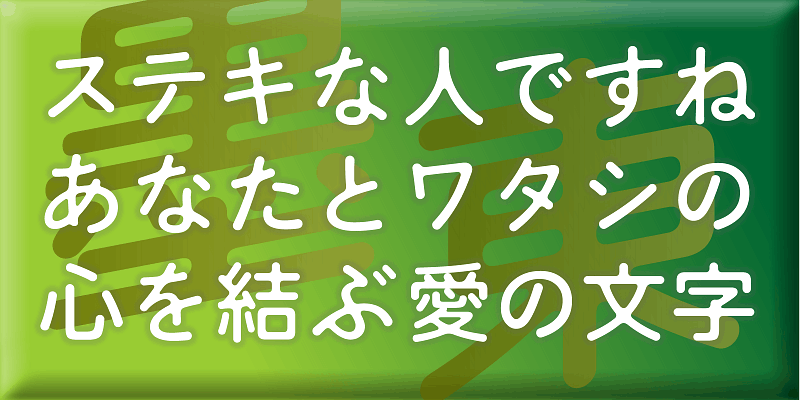
This typeface was created by rounding the inside corners of the round gothic typeface BokutohRera. This treatment gives the typeface a unique atmosphere, like Japan’s humid air. Its beautiful, classic character shapes will give the text a serious, readable and fresh image.